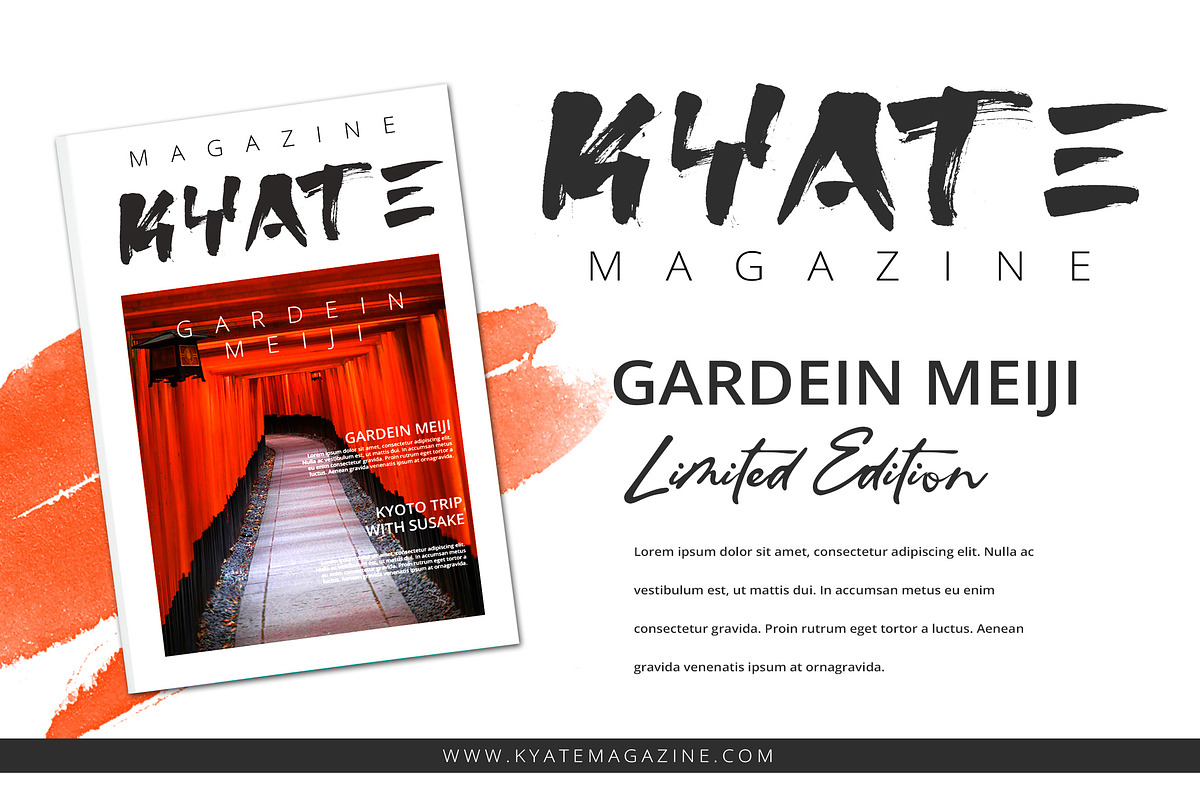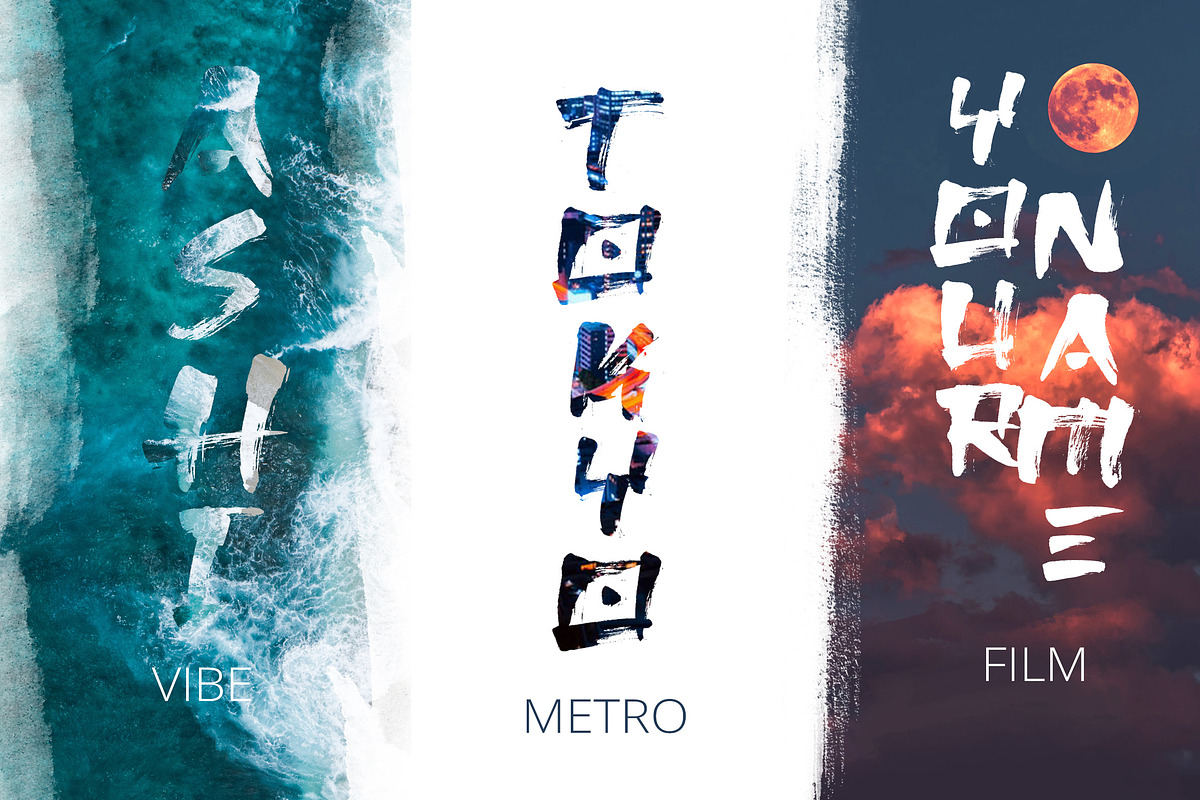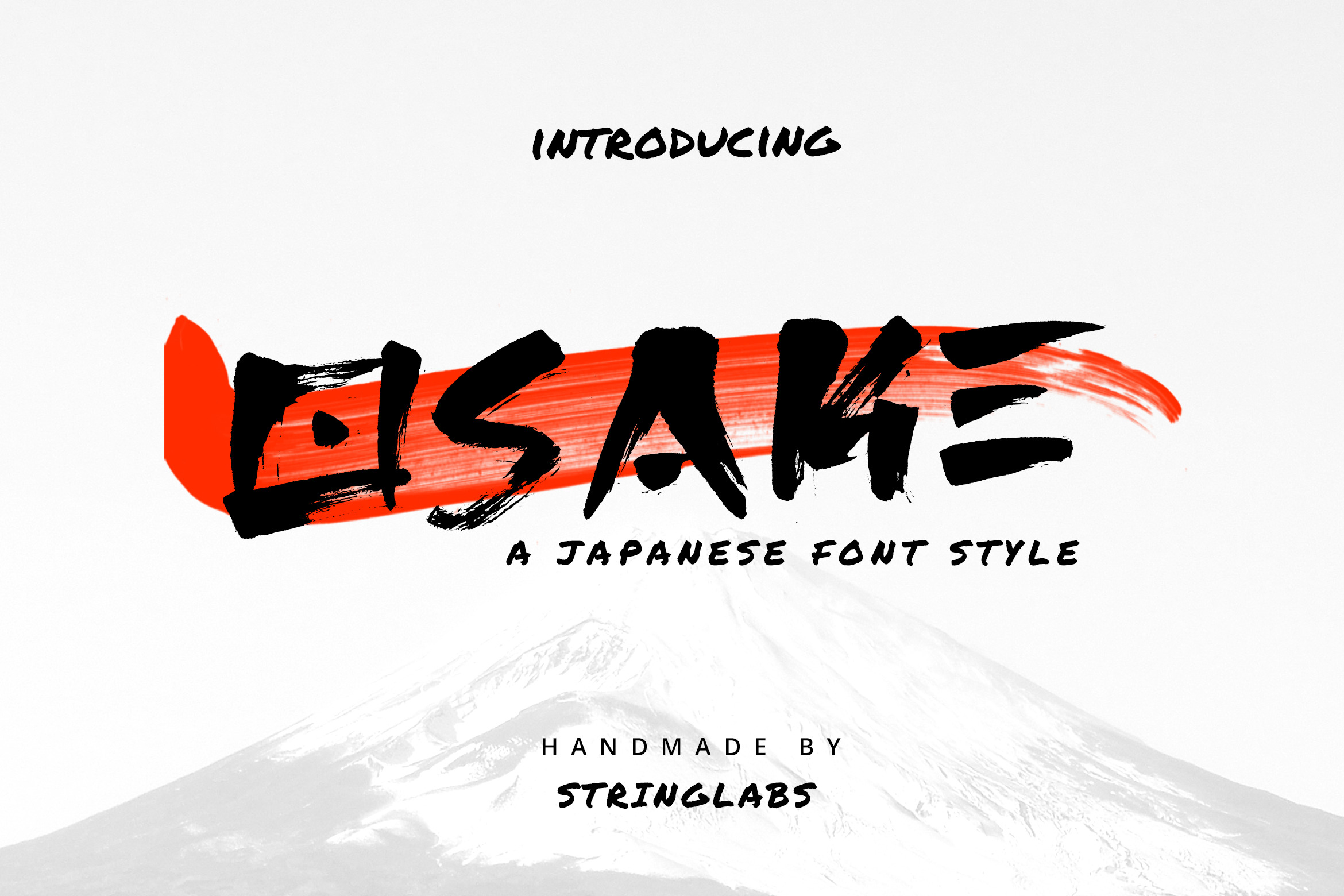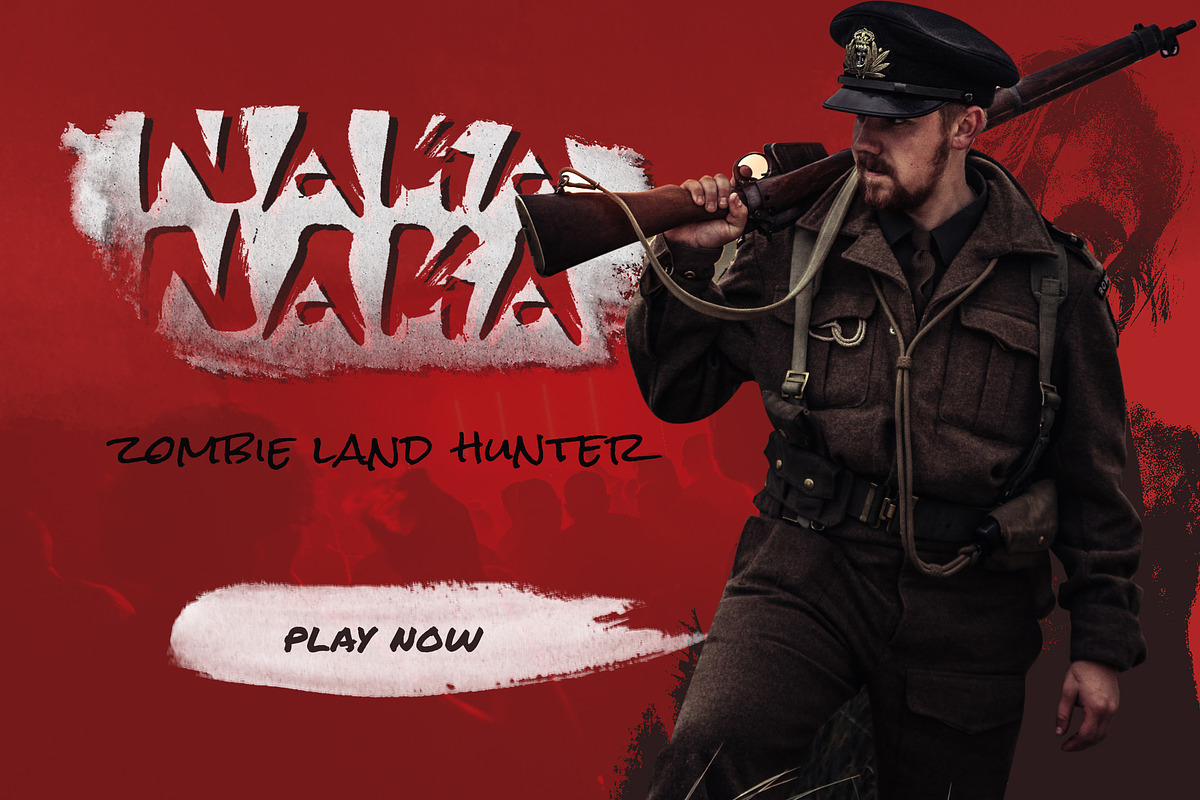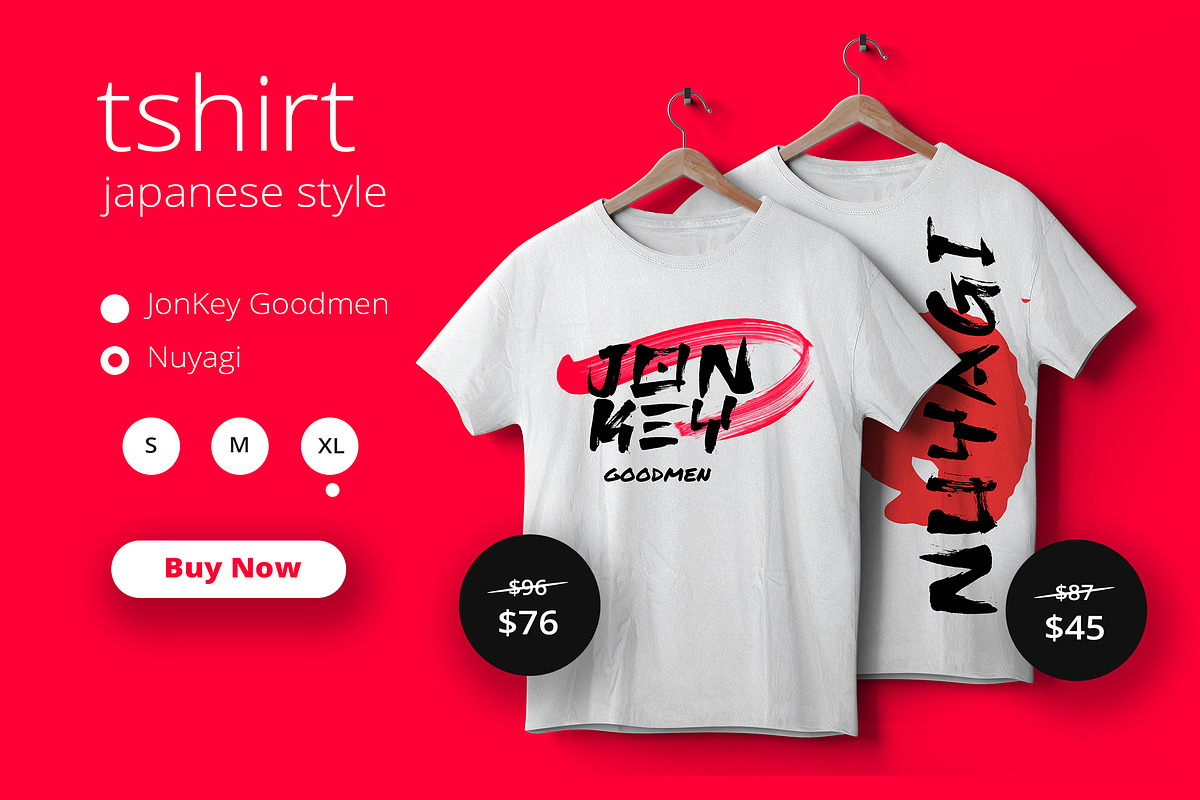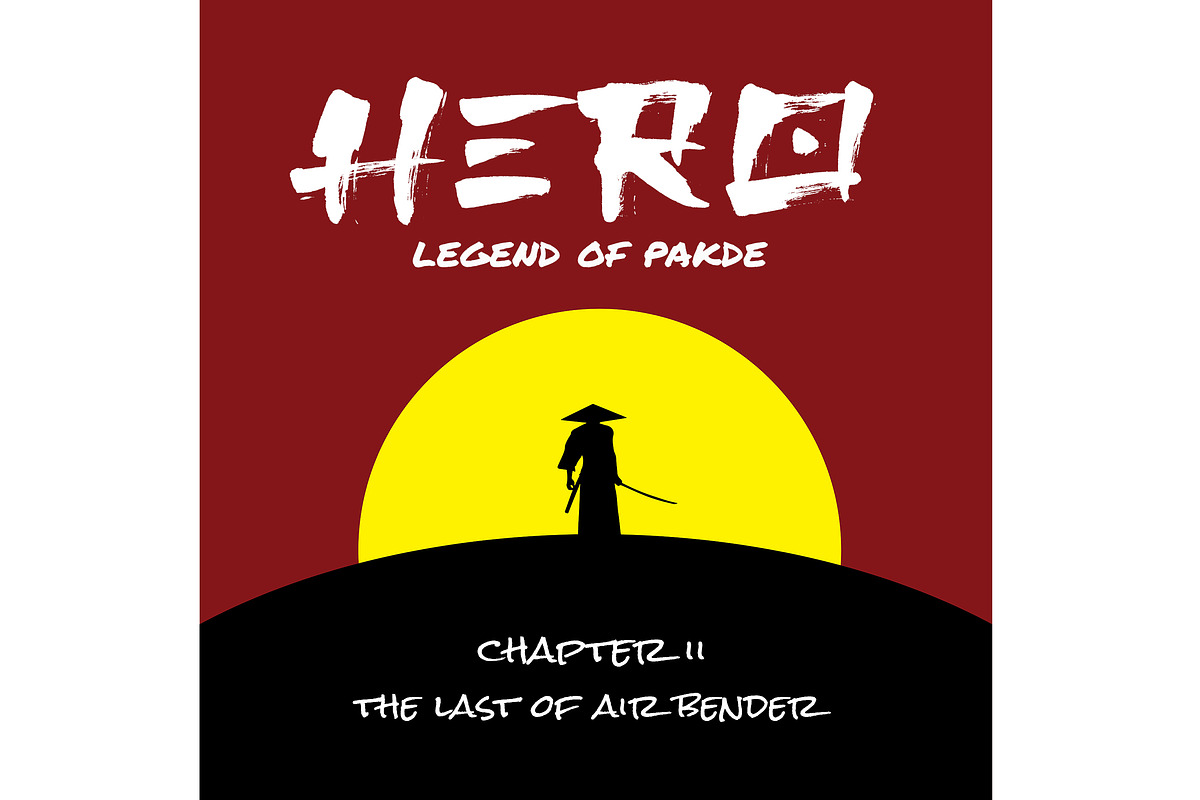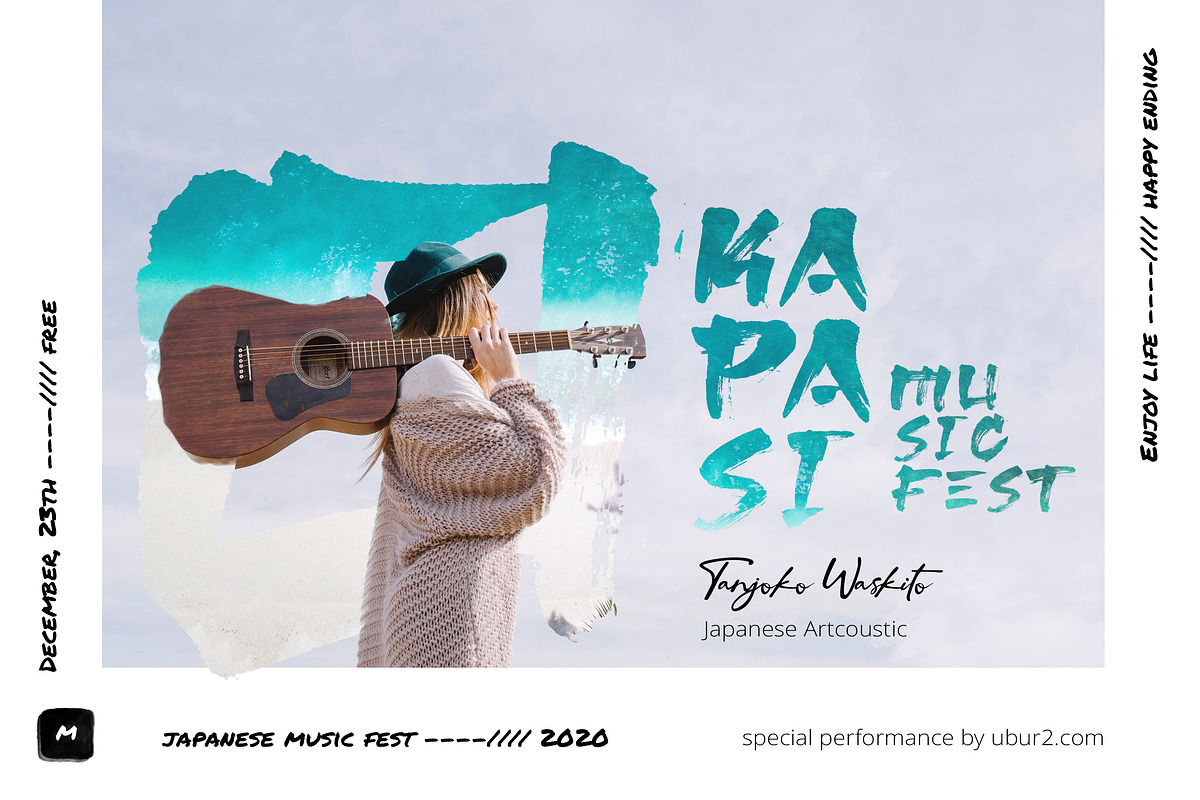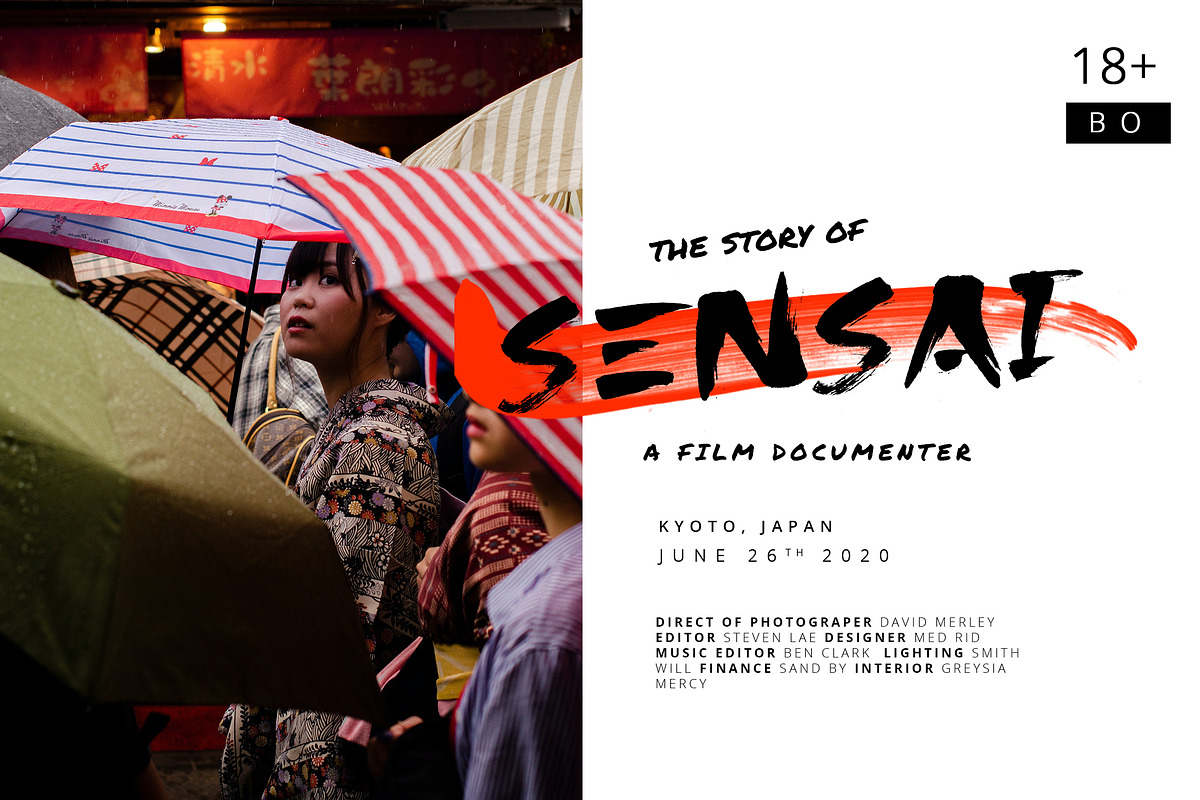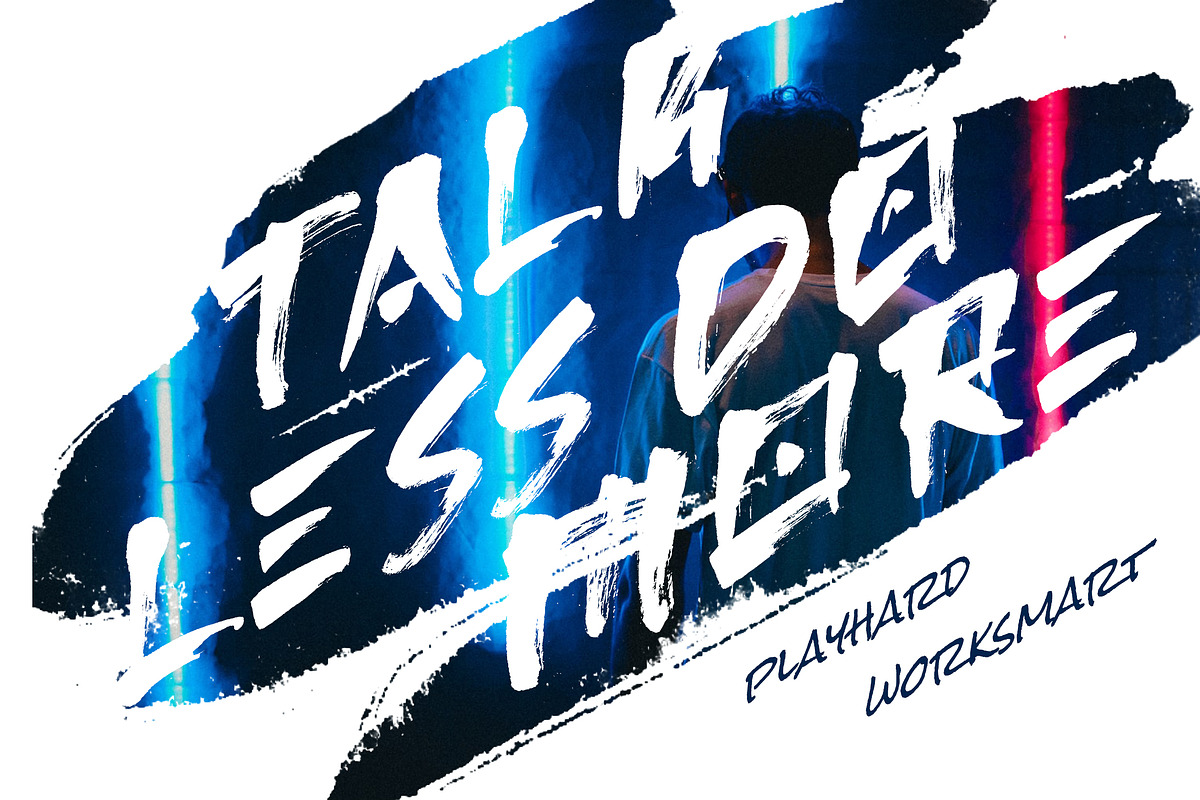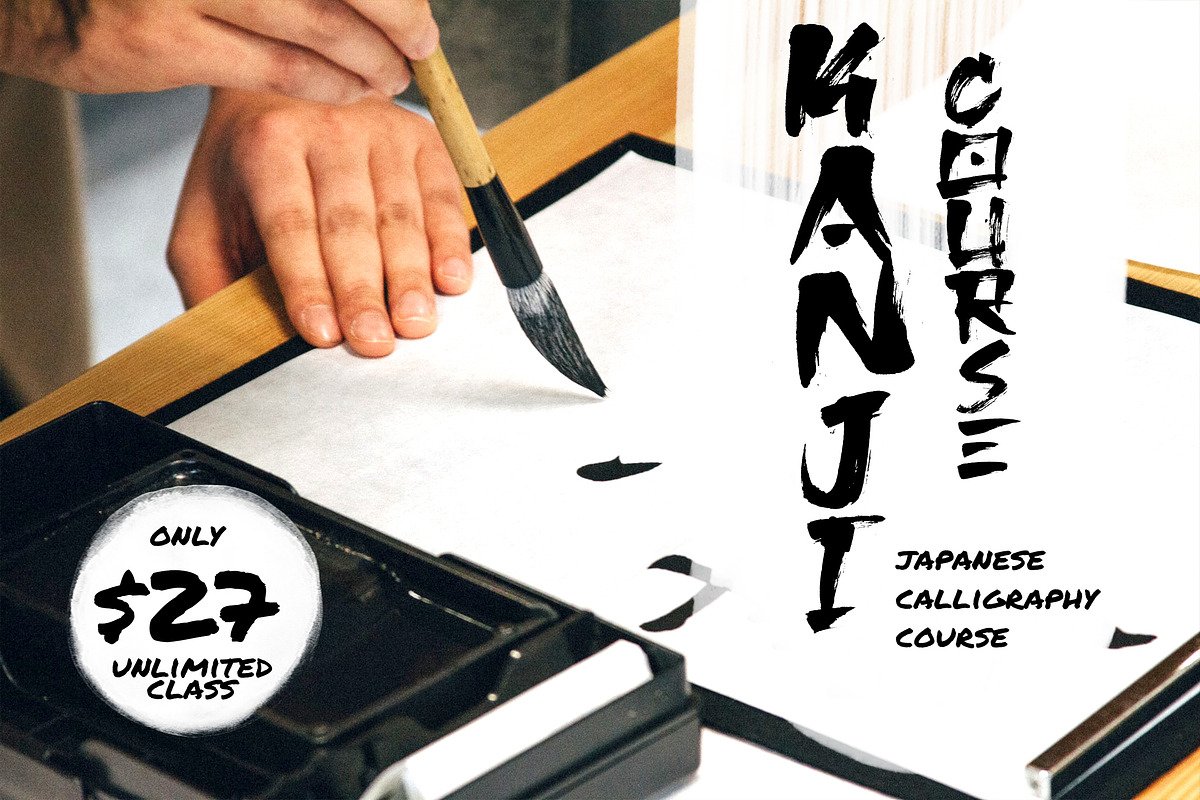
Osake - Japanese Font
Introducing Osake - Japanese Font
Osake is a japanese brush font that we made with excellent taste. We combine ethnic and cultural elements in each of the glyphs. This Osake font is suitable for those of you who like japanese culture, besides this font is also suitable for those of you who have a japanese restaurant, japanese clothing brand, japanese arts, and business purpose related with japanese culture.
The Osake is perfect for your brand!